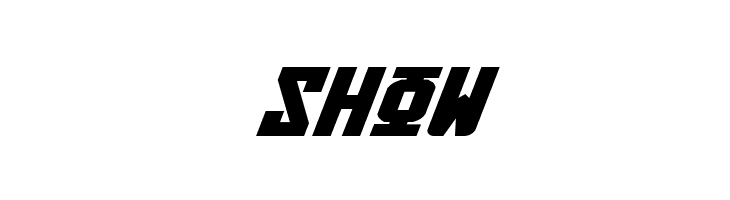
Anitlles Laser Academy Italic Font
- Font: Anitlles Laser Academy Italic
A bold, italicized font with geometric, angular design and strong diagonal emphasis.